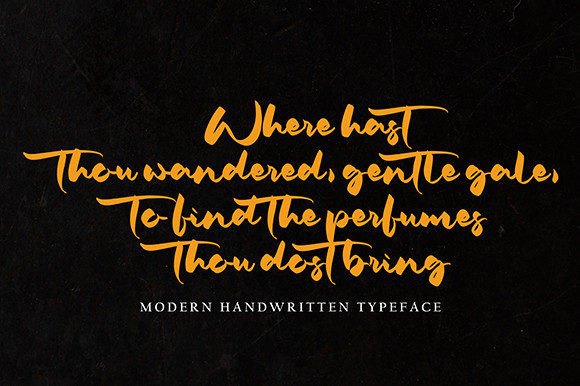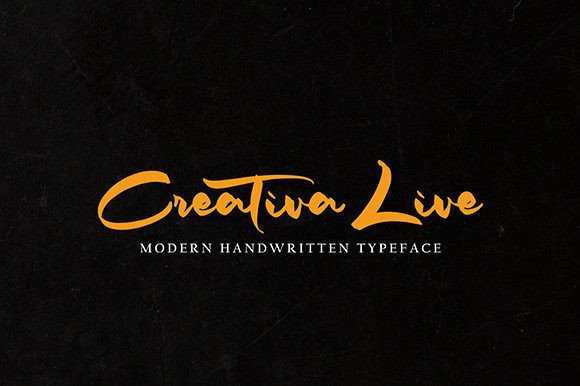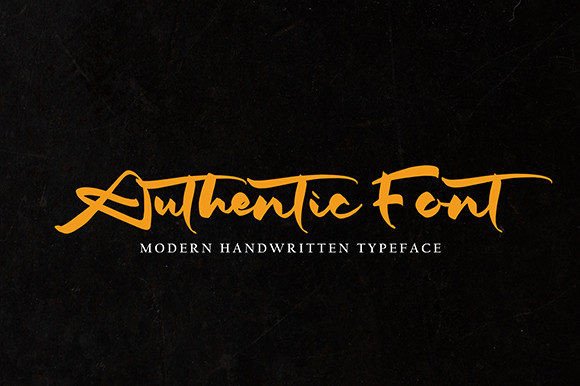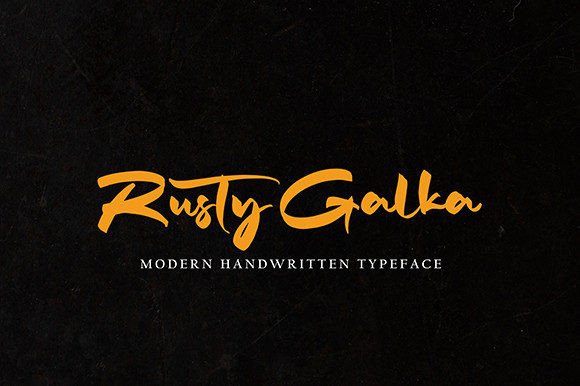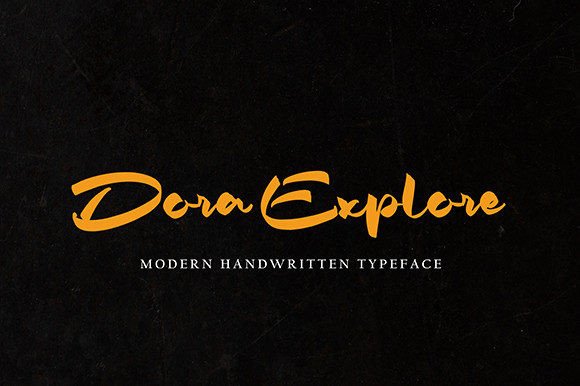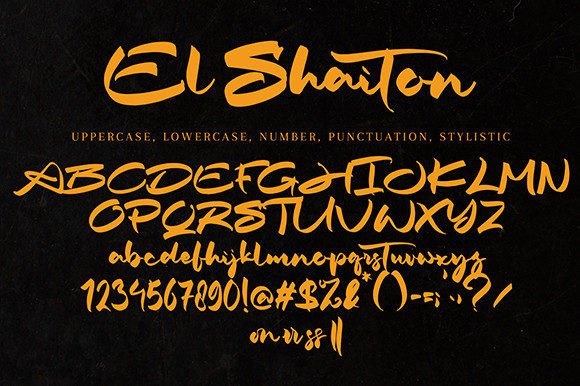
Introducing El Shaiton Font: Elevate Your Creativity with Elegance
In the world of typography, few fonts manage to capture the essence of elegance and magic in a single stroke. El Shaiton Font is one such exceptional script font that has been carefully crafted to bring a touch of sophistication and whimsy to your creative projects. Whether you’re a designer looking for the perfect font for your Instagram posts or a crafter seeking a calligraphy script for your DIY endeavors, El Shaiton is here to transform your ideas into true works of art.
The Magic of El Shaiton Font
El Shaiton Font is not just any ordinary script font. It’s a magical blend of traditional calligraphy and modern typography, designed to give your projects a unique and enchanting appeal. With its flowing lines and elegant curves, El Shaiton exudes a sense of luxury and refinement, making it perfect for a wide range of creative applications.
Key Features of El Shaiton Font
- Elegant Script Design: El Shaiton boasts a beautifully designed script font with intricate details and smooth lines, ensuring that your text looks sophisticated and stylish.
- Versatile Usage: This font is incredibly versatile, suitable for various projects such as social media graphics, branding, packaging, and DIY crafts.
- Easy to Read: Despite its elegant and cursive nature, El Shaiton remains highly legible, making it perfect for both headings and body text.
- Magical Touch: The font adds a whimsical and magical touch to your designs, setting them apart from the ordinary.
Uses of El Shaiton Font
The versatility of El Shaiton Font makes it an excellent choice for a multitude of creative projects. Here are some of the top uses for this enchanting font:
- Instagram and Social Media Graphics: Elevate your social media presence with stylish and eye-catching graphics. El Shaiton’s elegant design is sure to make your posts stand out.
- Calligraphy and Handlettering: For crafters and artists who enjoy calligraphy and handlettering, El Shaiton provides a beautiful template to work with, adding a professional touch to your work.
- DIY Projects: Whether you’re creating handmade cards, party invitations, or craft projects, El Shaiton can add a touch of elegance and personalization.
- Branding and Packaging: Businesses looking for a unique and luxurious font for their branding or packaging will find El Shaiton to be an excellent choice, helping to convey a sense of high-end quality.
Tips for Using El Shaiton Font
To get the most out of El Shaiton Font and ensure your designs look their best, consider the following tips:
- Pair with Complementary Fonts: For maximum impact, pair El Shaiton with clean, sans-serif fonts to create a balanced and visually appealing design.
- Adjust Letter Spacing: Experiment with letter spacing to achieve the perfect look for your project. Some designs benefit from tighter spacing, while others look better with a bit more room.
- Play with Colors: El Shaiton looks stunning in a variety of colors. Don’t be afraid to experiment with different color schemes to find the one that best suits your design.
El Shaiton Font is more than just a script font; it’s a tool for creativity and self-expression. Its magical and elegant design makes it an invaluable asset for designers and crafters looking to add a touch of sophistication and whimsy to their projects. Whether you’re working on a professional design or a personal DIY project, El Shaiton is sure to inspire and elevate your creative endeavors. So why wait? Dive into the world of elegance and magic with El Shaiton Font and watch your ideas transform into true pieces of art.